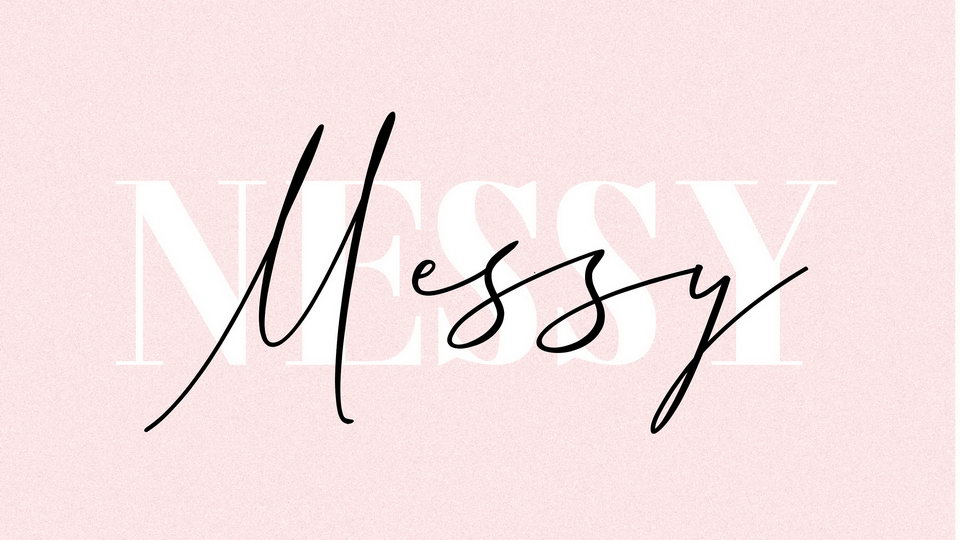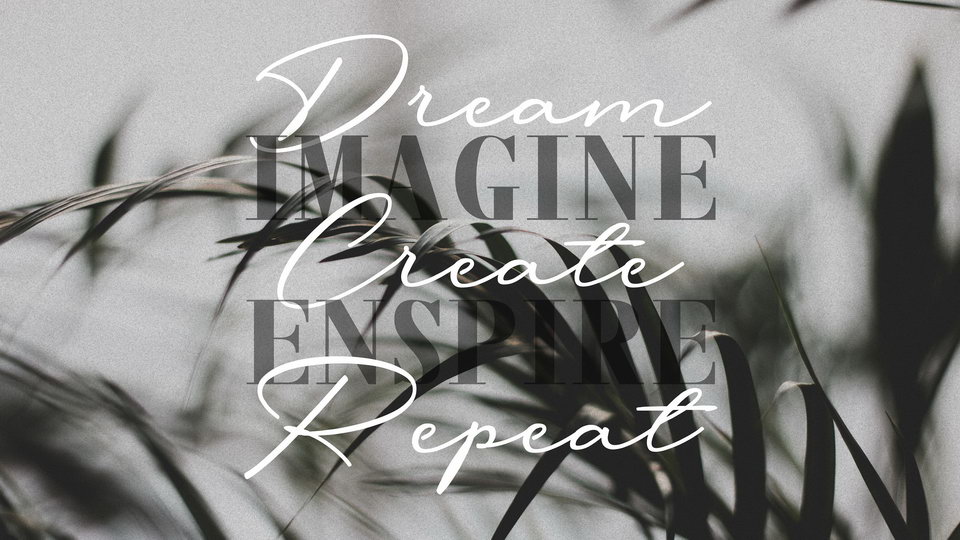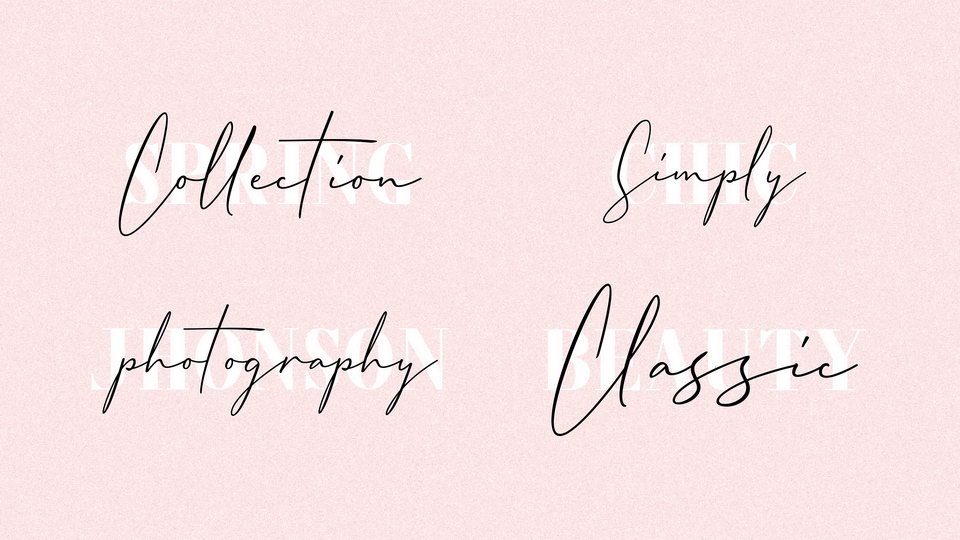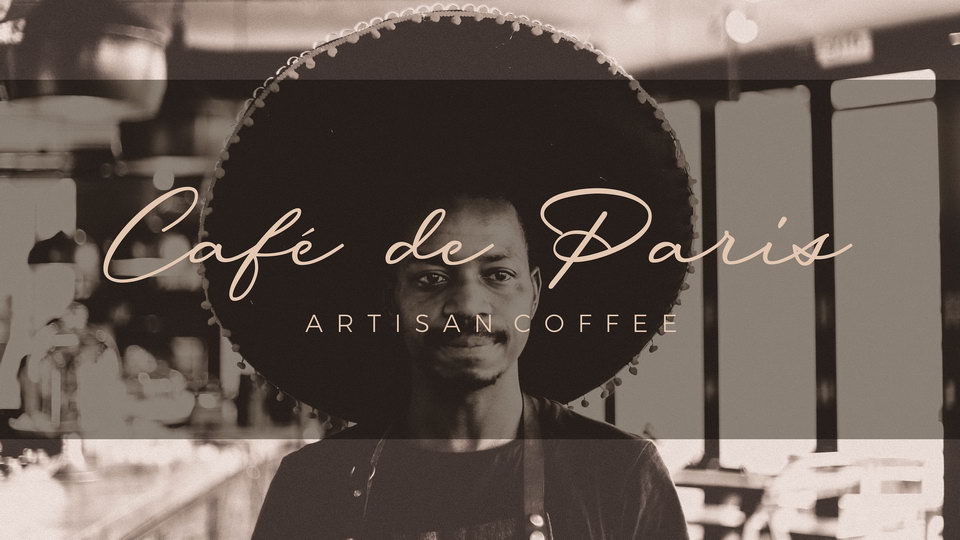
Messy Nessy is a stylish signature script with very natural feel. Full version comes with two Script fonts and elegant Serif.
With Messy Nessy fonts it’s easy to make gorgeous logos, badge, sign, packaging, headline, social media, etc. It is so beautiful and classy.